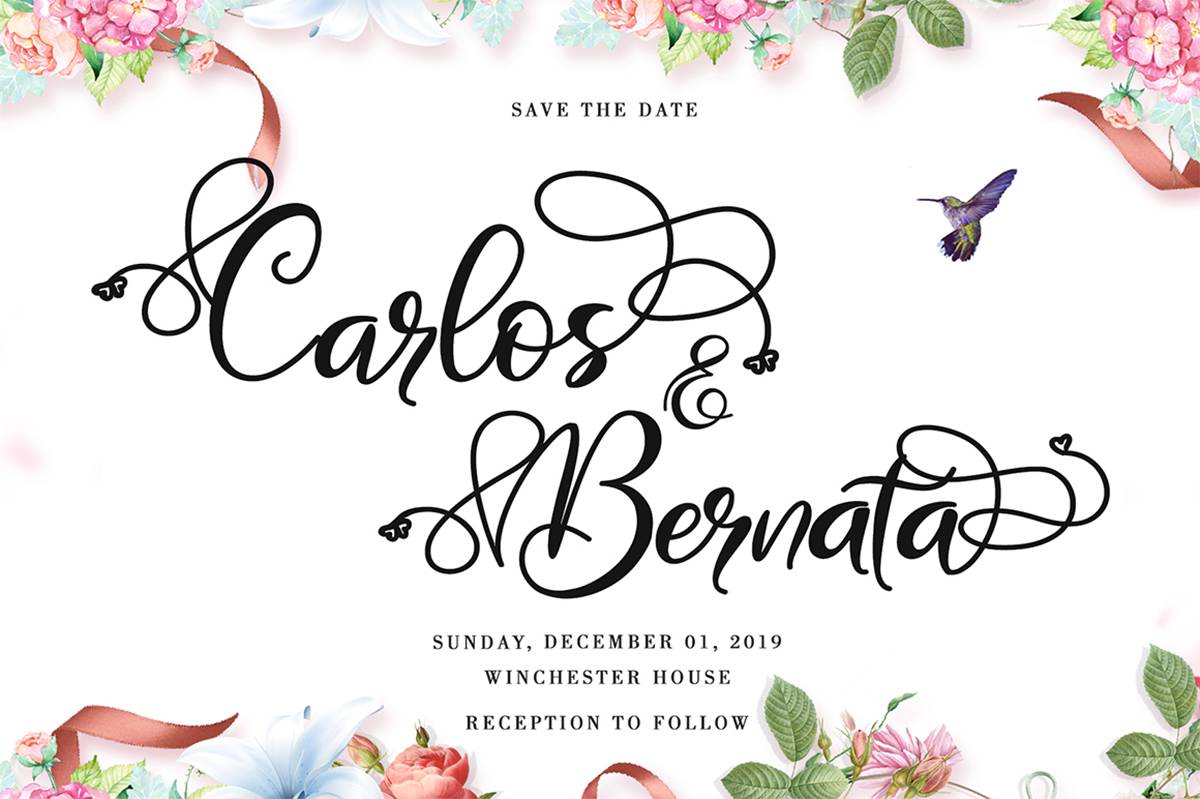
Gamos is an elegant, delicate script font featuring thin, flowing strokes with a hand-lettered feel that mix classic calligraphy with modern flair. Its slender letterforms and ornate swashes make it perfect for sophisticated branding, invitations, and stylish headlines where a graceful, refined touch is desired. This font works best in decorative uses that highlight its intricate curves without sacrificing readability.
Gamos Font
About Gamos Font
| Font family | Gamos Font |
| Release date | 2019-11-07 |
| Designer | Letterara 2019 |